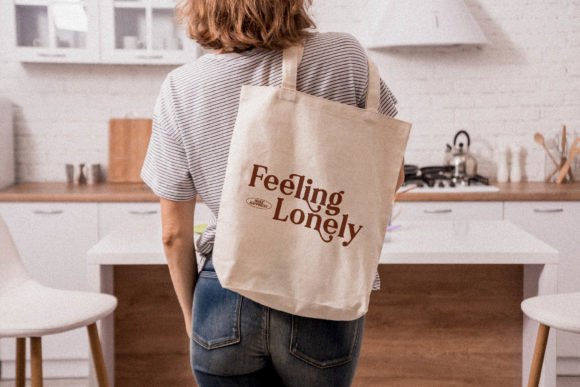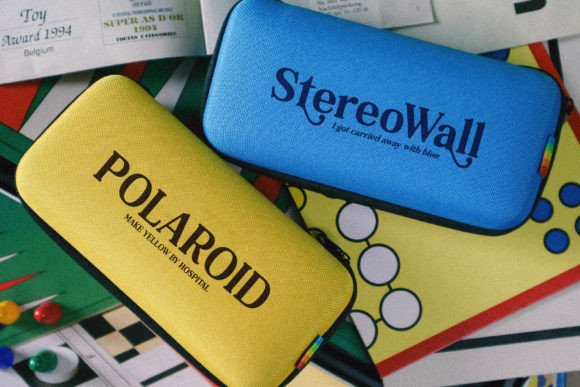
Softers Font
Softers is a stylish and modern serif font. Featuring just the right amount of trendiness combined with a classy look, this font is suitable for creating unique and stunning designs. Softers is PUA encoded which means you can access all the glyphs and ligature with ease!